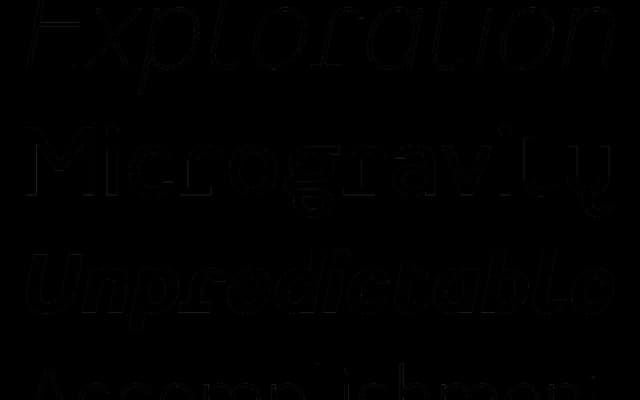
Heimat Sans
A grotesque sans-serif from Atlas Fonts in the tradition of German workhorse typefaces.
Heimat Sans sits within the lineage of German grotesque sans-serifs, a genre associated with workhorse utility and neutral legibility. The page content available at the time of indexing was insufficient to confirm weights, italics, or language coverage in detail. Atlas Fonts position the family within their broader catalogue of contemporary text and display typefaces.
The name 'Heimat Sans' places it in the tradition of German grotesque sans-serifs; without further page content, the classification is inferred from naming conventions and the foundry's broader typographic output.